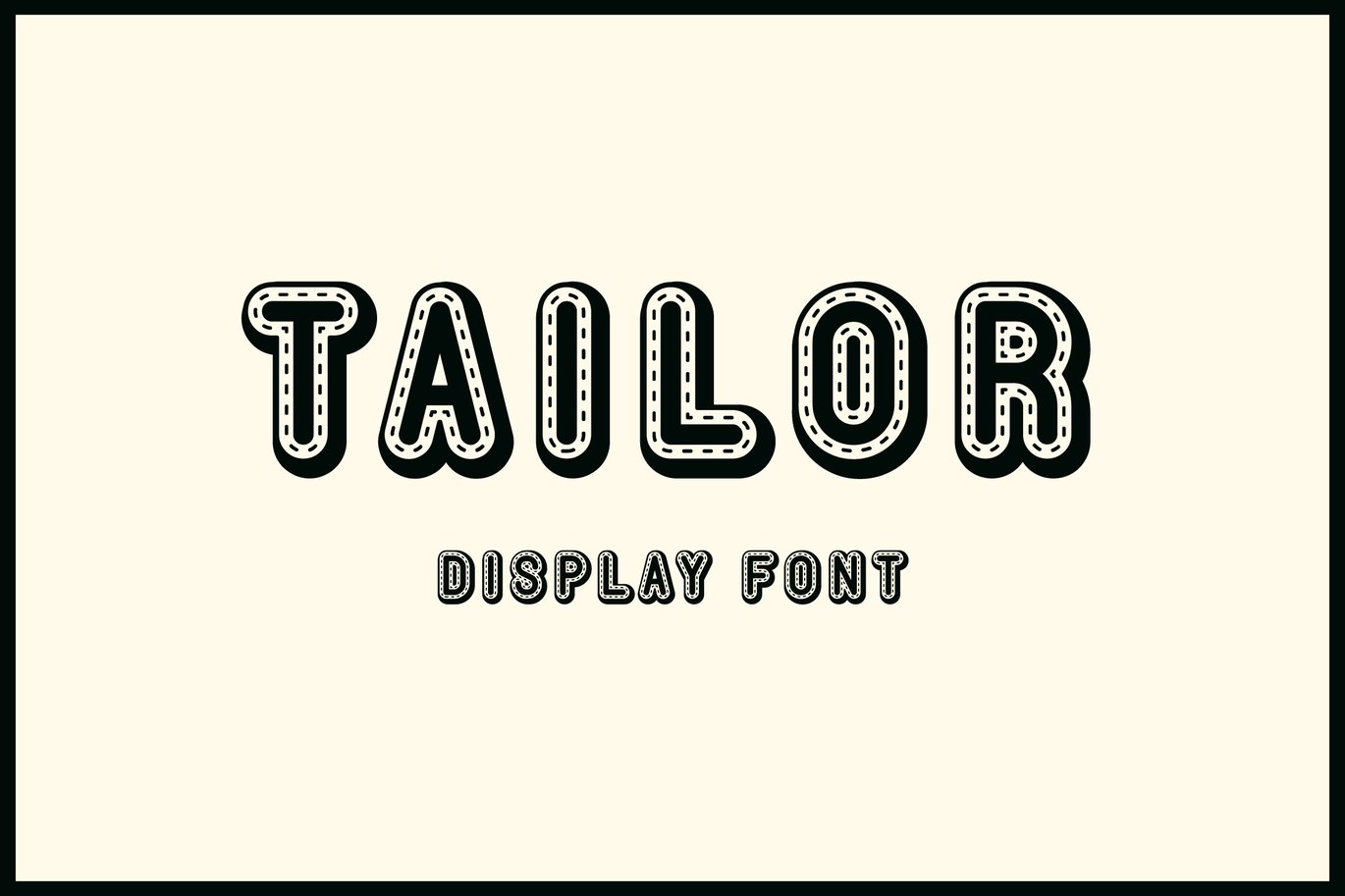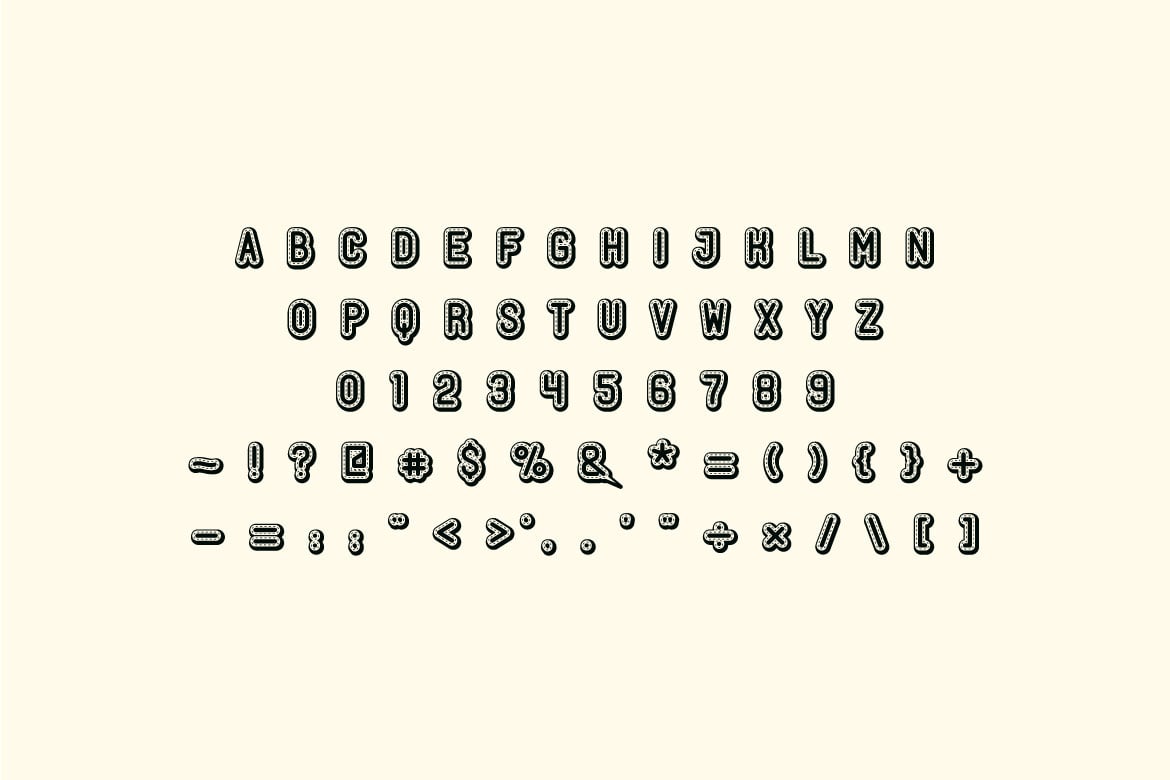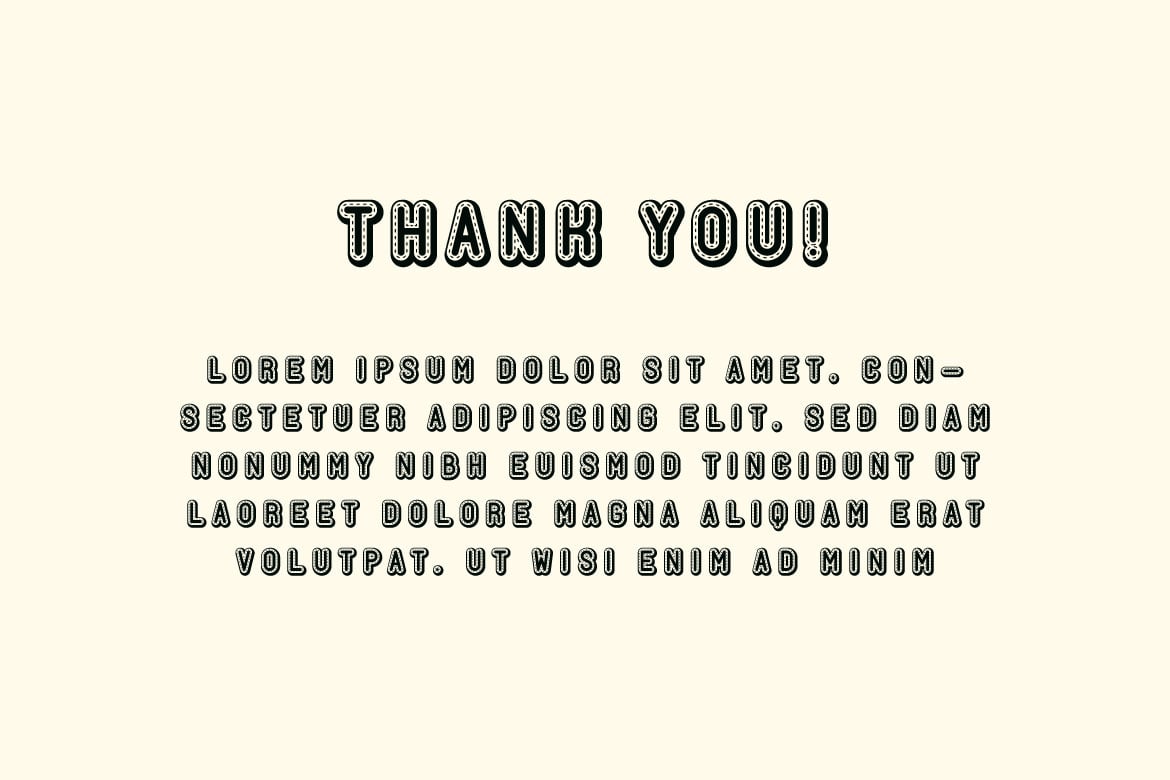
Tailor – Display font
If you are looking for a unique display font, meet Tailor
Boigen is perfect for any works, such as your poster, card, book title, headline of news, banner, flyer, stationery and many more. It also can be used in Any scale work.